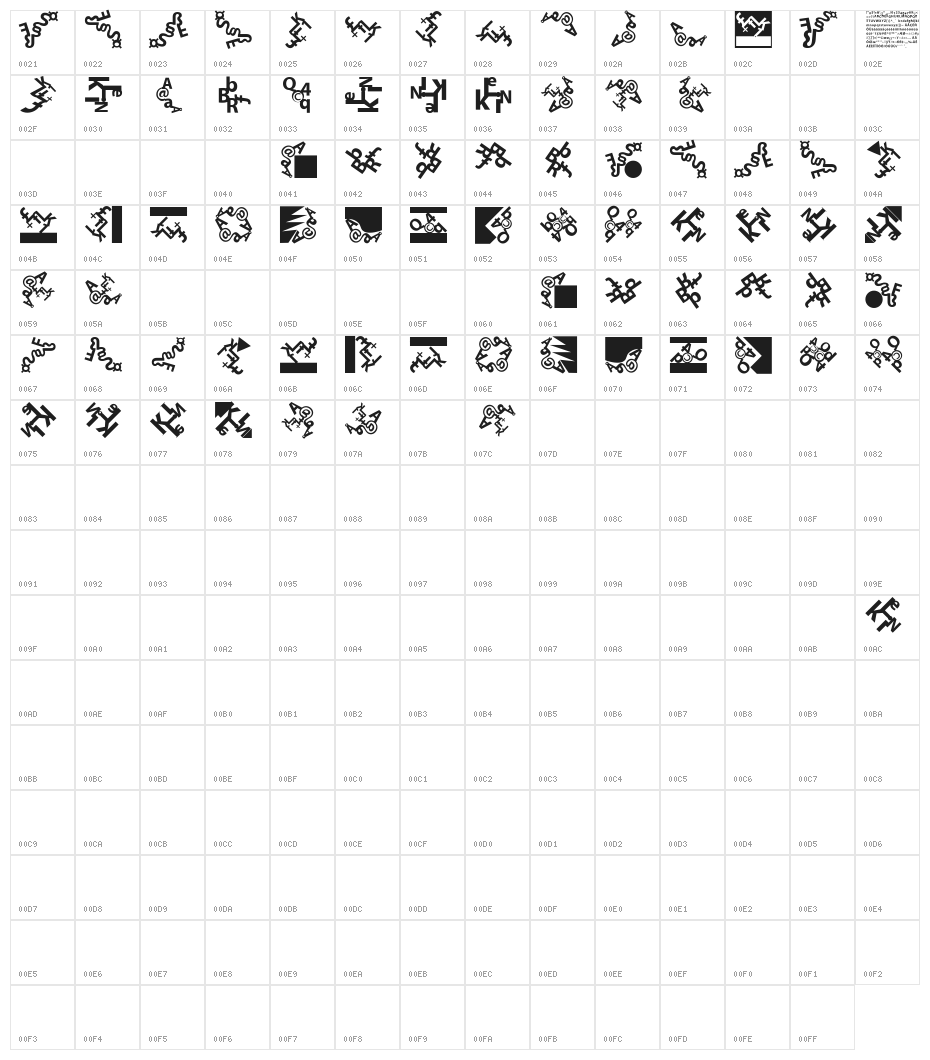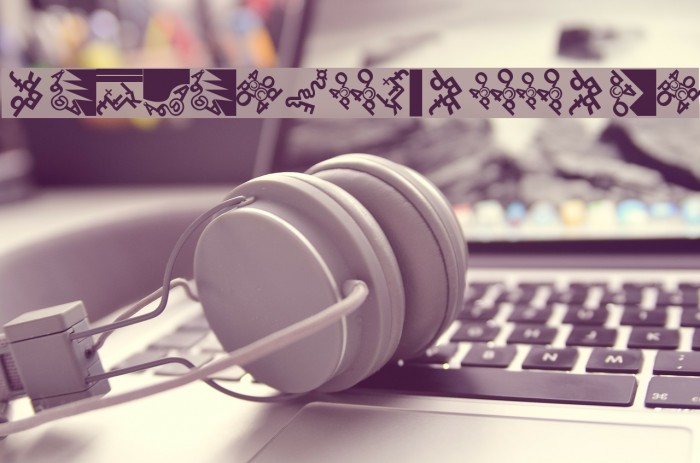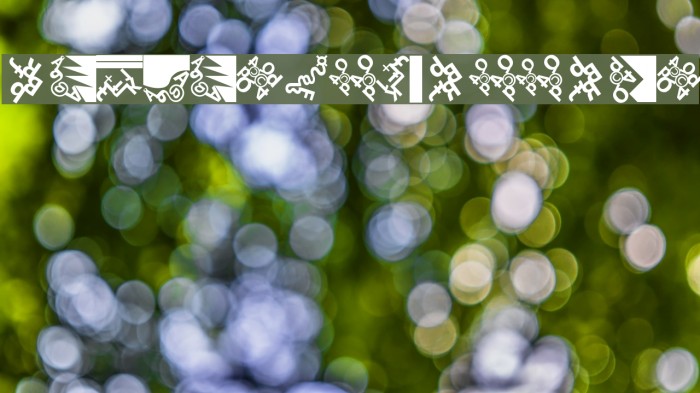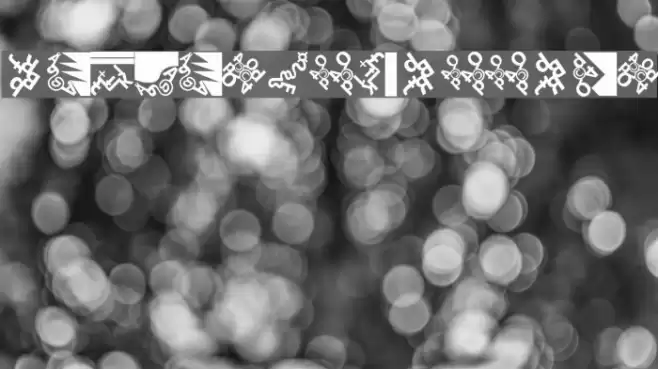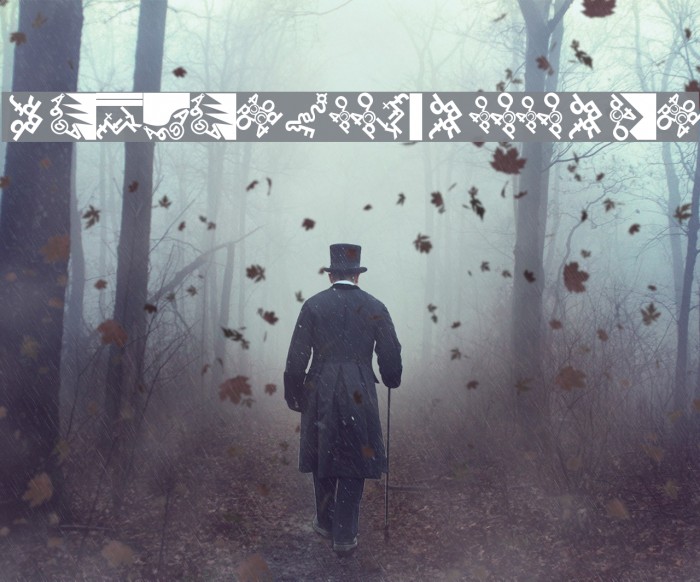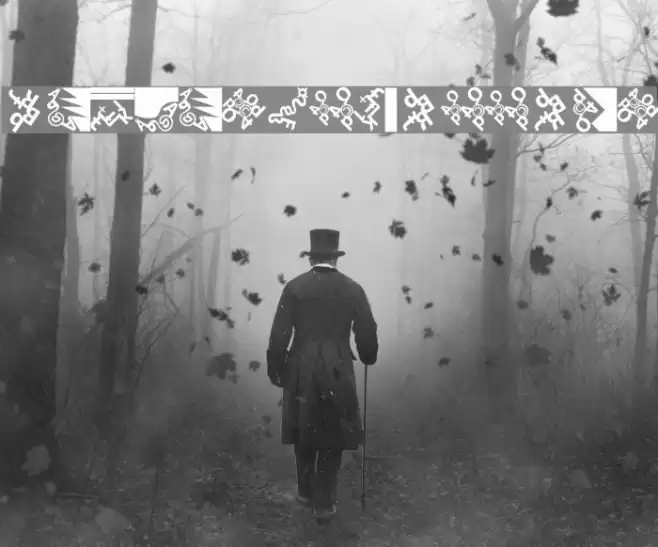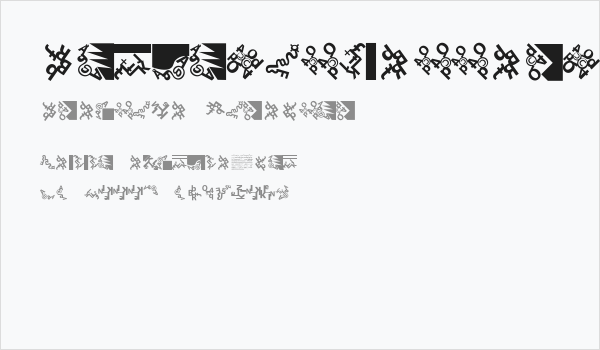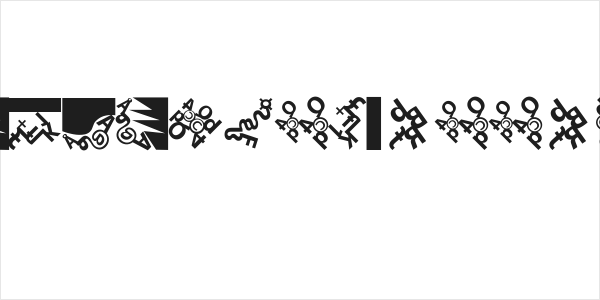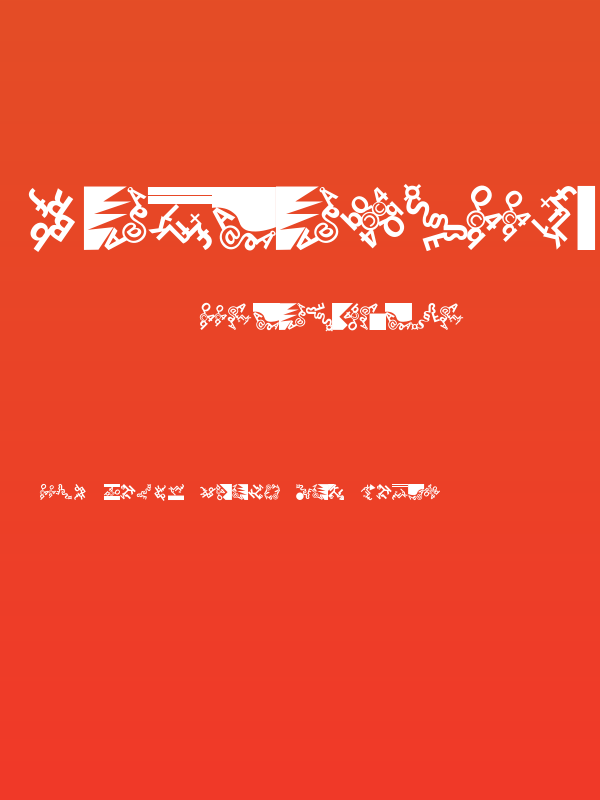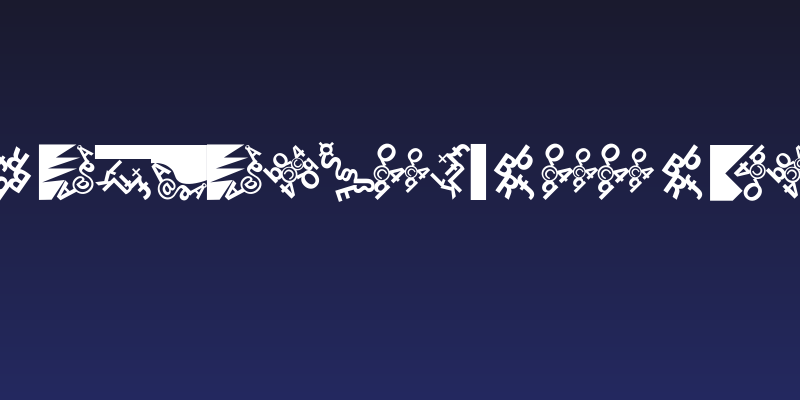
CompositLetters Font
CompositLetters Description
Highly abstract and experimental typeface combining geometric shapes, overlapping forms, and intricate linework to create composite letterforms that are difficult to read and visually complex.
| Overall Style | Decorative, Experimental, Abstract |
| Use Case | Art projects, Display type, Visual identity for creative brands |
| Proposed Projects | Avant-garde posters, experimental art, album covers, visual puzzles, branding for creative industries. |